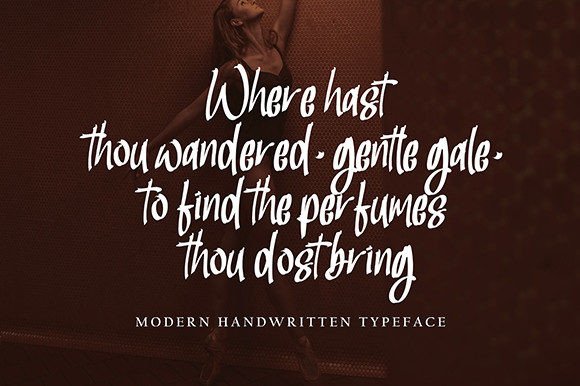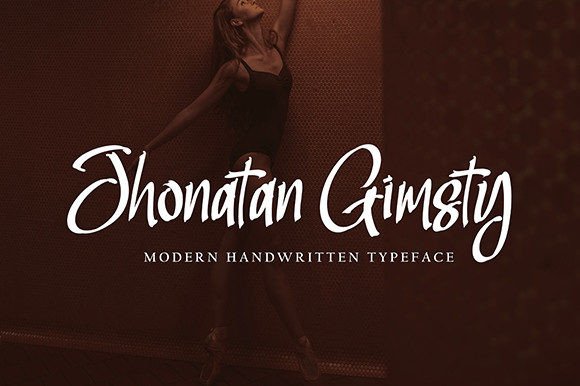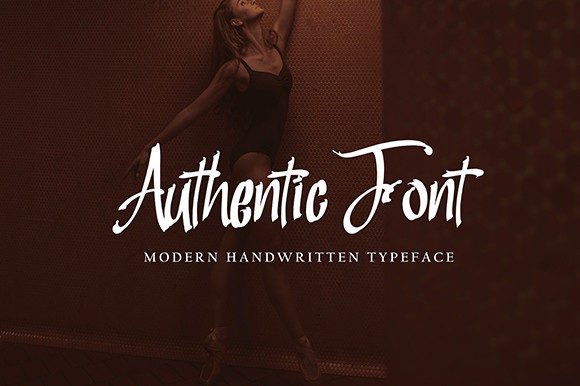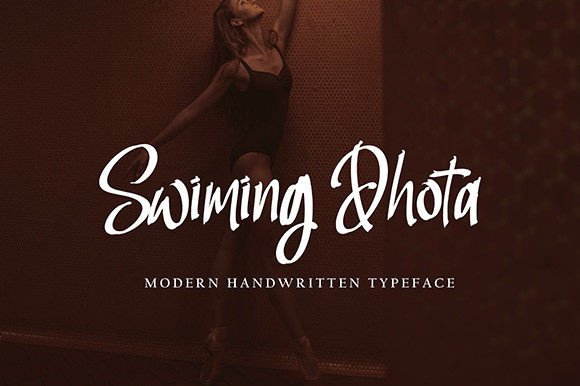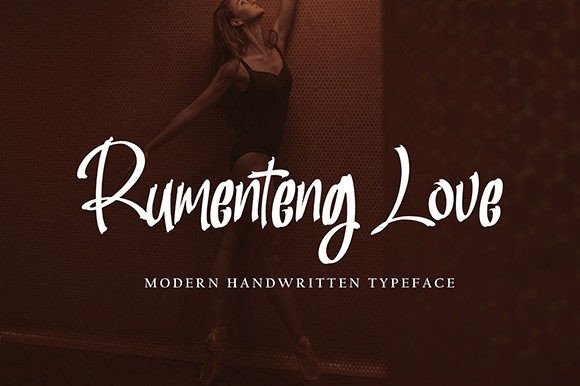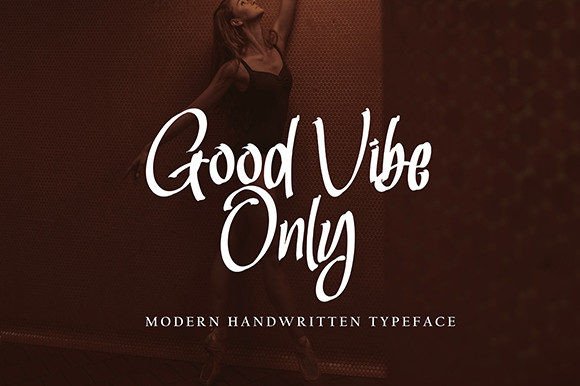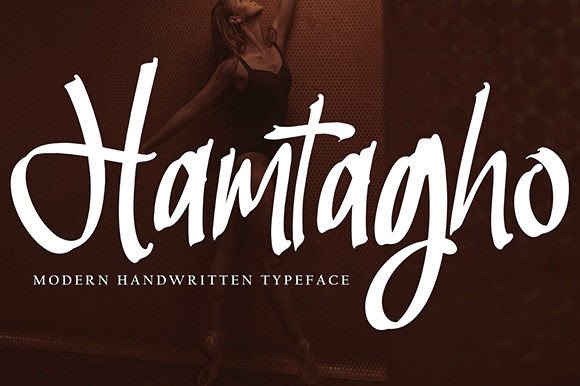
Introducing Hamtagho Font: The Ultimate Handwritten Brush Font for Creative Projects
Are you a designer, crafty DIY enthusiast, or a social media influencer looking for a unique and trendy font to elevate your creative projects? Look no further than Hamtagho Font, a stylish and cool handwritten brush font that’s taking the design world by storm. In this article, we’ll dive into the features, benefits, and uses of Hamtagho Font, and explore how it can help bring your creative ideas to life.
What is Hamtagho Font?
Hamtagho Font is a beautifully crafted handwritten brush font that’s perfect for a wide range of creative projects, from branding and advertising to social media graphics, invitations, and more. Its unique and trendy design makes it an excellent choice for designers, crafters, and DIY enthusiasts looking to add a personal touch to their work.
Key Features of Hamtagho Font
- Handwritten Brush Style: Hamtagho Font boasts a stunning handwritten brush style that’s both elegant and playful.
- Trendy and Cool: This font is perfect for designers and crafters who want to stay on top of the latest design trends.
- Masterfully Designed: Hamtagho Font has been carefully crafted to ensure that it’s both visually appealing and highly legible.
- Versatile: This font can be used for a wide range of creative projects, from digital designs to print materials.
Benefits of Using Hamtagho Font
So, why choose Hamtagho Font for your creative projects? Here are just a few benefits of using this amazing font:
- Adds a Personal Touch: Hamtagho Font’s unique handwritten style adds a personal touch to your designs, making them stand out from the crowd.
- Enhances Creativity: With Hamtagho Font, you can bring your creative ideas to life and add a touch of elegance and sophistication to your work.
- Perfect for Branding: This font is ideal for branding and advertising projects, as it helps to create a consistent and recognizable visual identity.
Uses of Hamtagho Font
Hamtagho Font is a versatile font that can be used for a wide range of creative projects, including:
- Branding and Advertising: Use Hamtagho Font to create stunning logos, business cards, and ad campaigns.
- Social Media Graphics: Add a touch of elegance and sophistication to your social media graphics, including Instagram posts, Facebook covers, and Twitter headers.
- Invitations and Stationery: Use Hamtagho Font to create beautiful invitations, greeting cards, and stationery.
- DIY Projects: Add a personal touch to your DIY projects, including handmade crafts, jewelry, and home decor.
Tips for Using Hamtagho Font
Here are a few tips for getting the most out of Hamtagho Font:
- Experiment with Colors: Try pairing Hamtagho Font with different colors and textures to create unique and eye-catching designs.
- Mix and Match: Combine Hamtagho Font with other fonts and design elements to create stunning and complex designs.
- Pay Attention to Legibility: Make sure to adjust the font size and style to ensure that your text is easy to read.